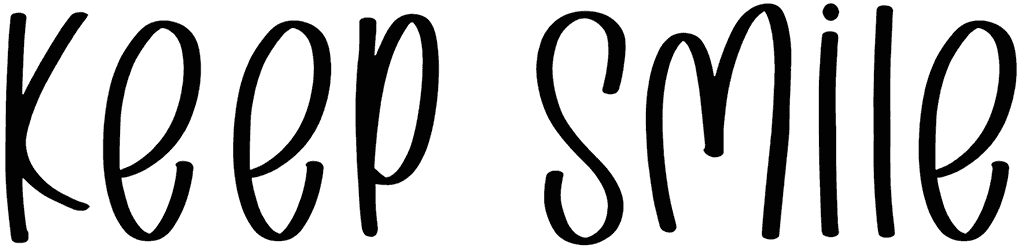
Psycho Robots Font
Do you want to display your design in a crazy and funny mood? Psycho Robots is here, a font with a sloppy look that can get you there.
This cartoon font supports two versions and two sets of caps with different details, but you don’t have lowercase with its own pattern. As a fancy font, it is one of the unique options to illustrate your playful designs, namely, foregrounds, comics, apparel, and the rest.
Designed by: Hawtpixel